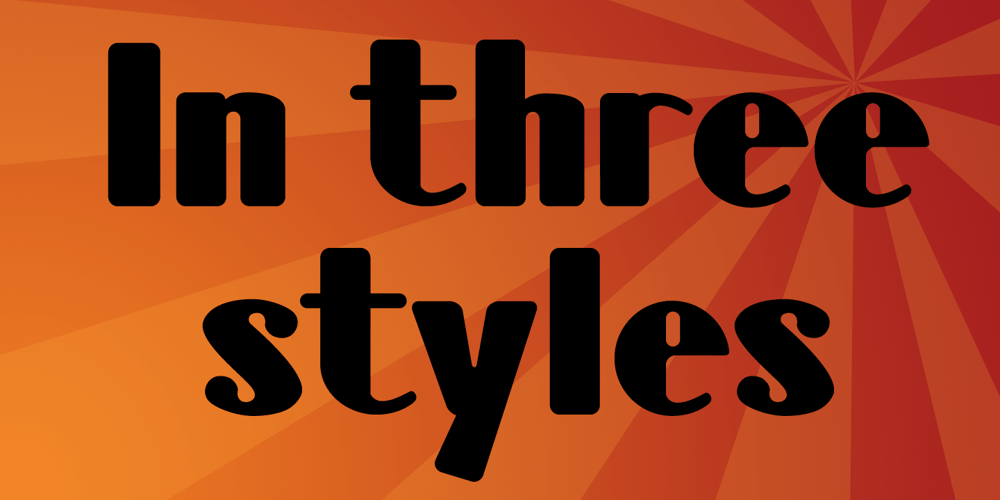
Tubbs Font Family was designed by Kent Swecker and published by A New Machine. Tubbs contains 3 styles and family package options. Tubbs is a thick sans font. Beefy. Heavy. It’s got weight. Comes with two levels of distress suitable for mixing for a more natural look. Great for use in posters, headlines, titles – wherever you need a little heft.